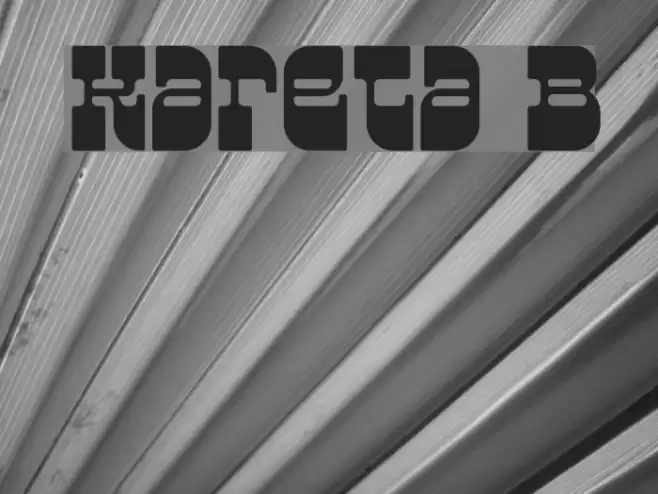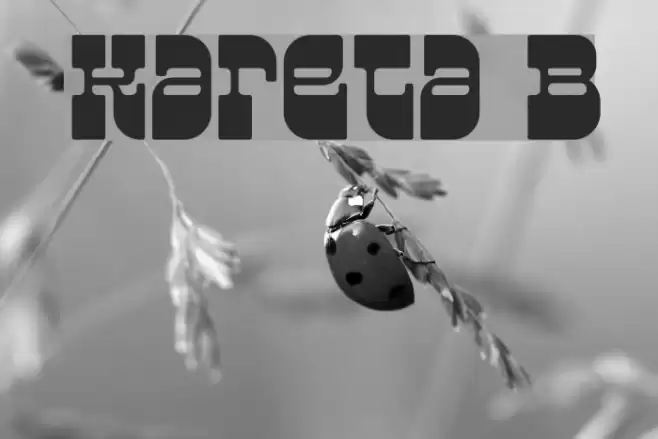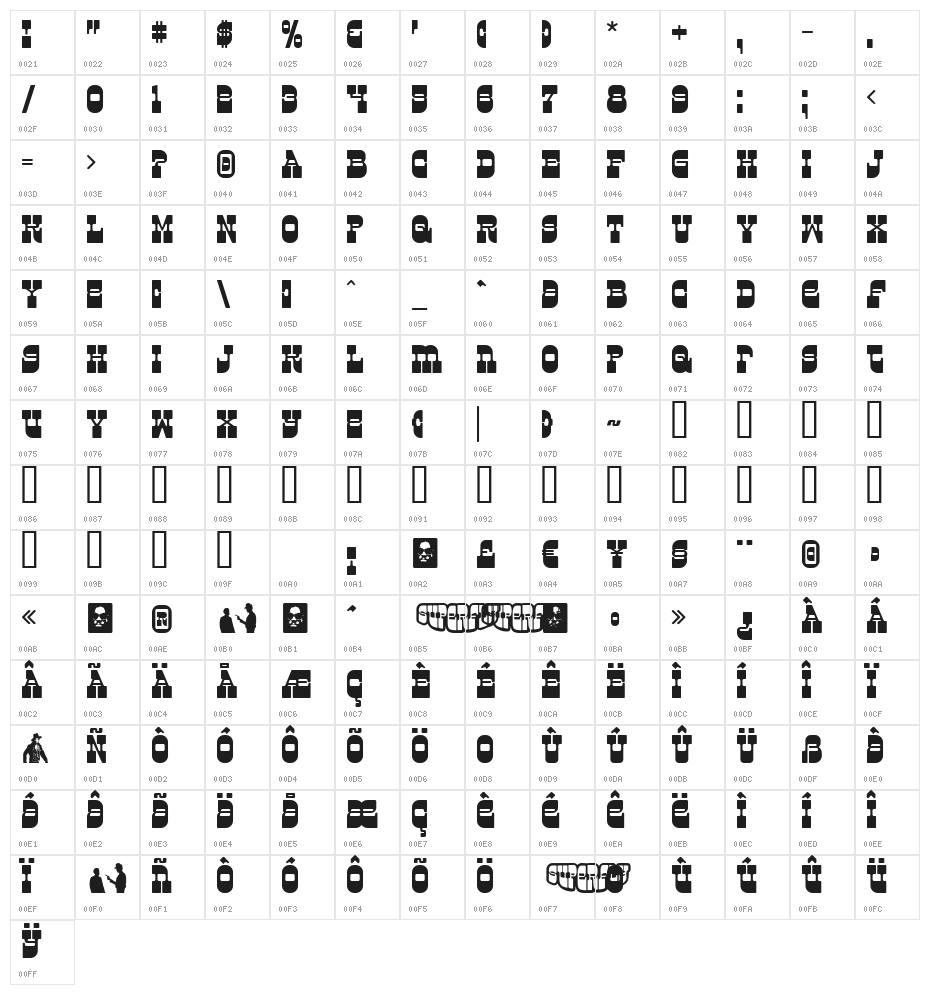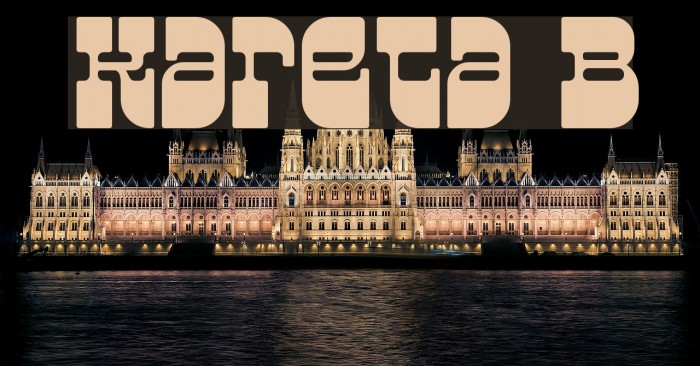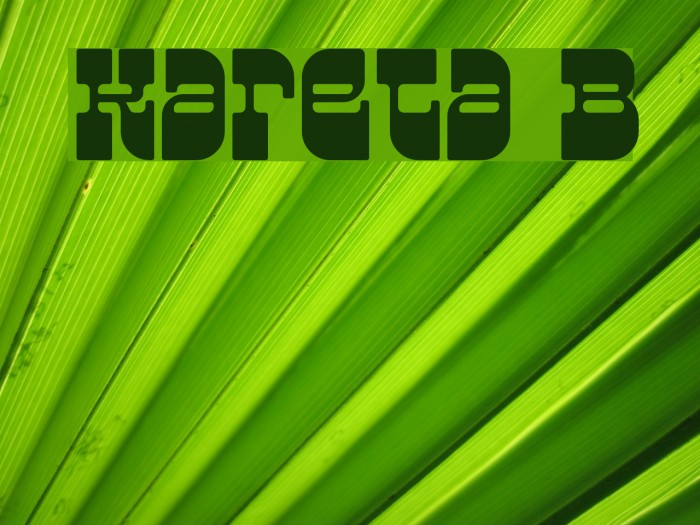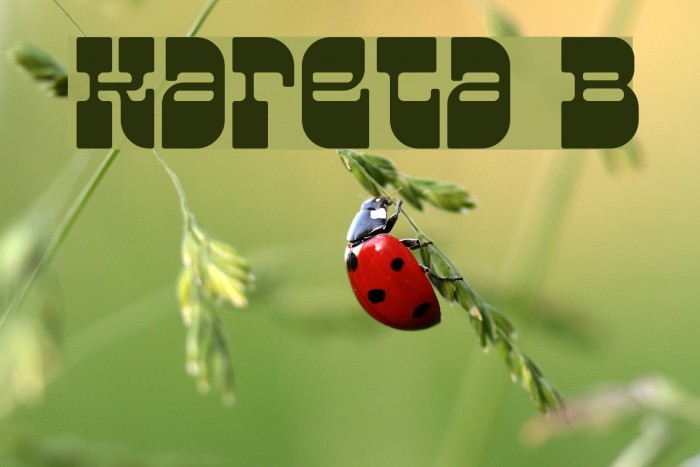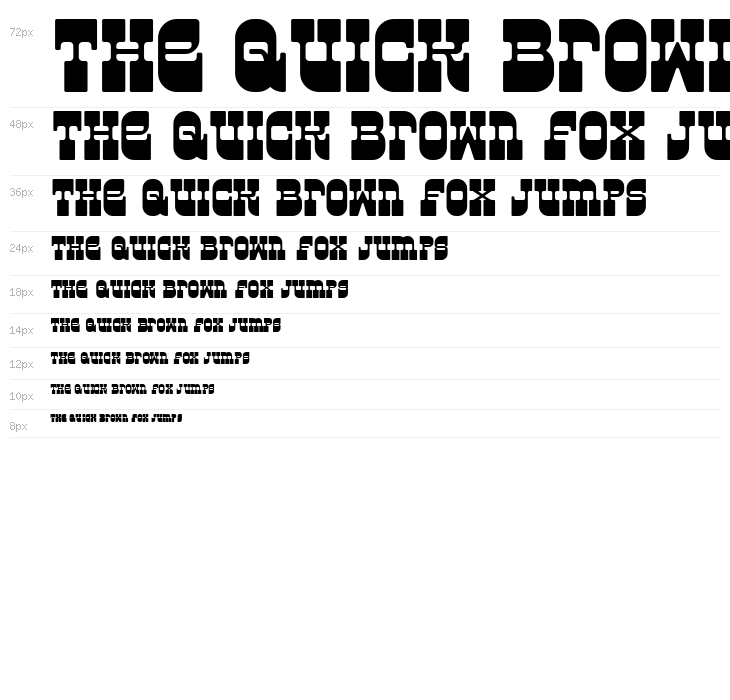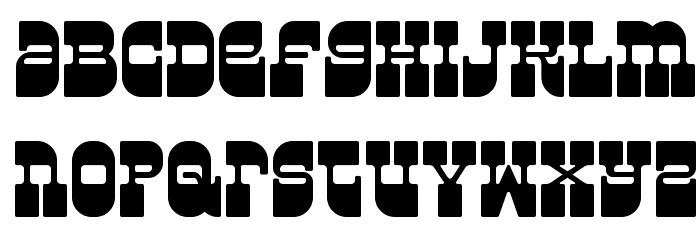
Kareta B Font
Kareta B Description
This font is a bold and striking display typeface characterized by its heavy, block-like letterforms. Each character is designed with a strong geometric structure, featuring thick strokes and minimal contrast. The letters are uniformly wide, creating a cohesive and impactful appearance. The uppercase and lowercase letters maintain a consistent style, while the numerals and special characters complement the overall aesthetic. This font's unique style makes it ideal for attention-grabbing designs where readability and visual impact are crucial.
A bold, geometric display typeface with heavy, block-like letterforms from Uncategorized fonts.